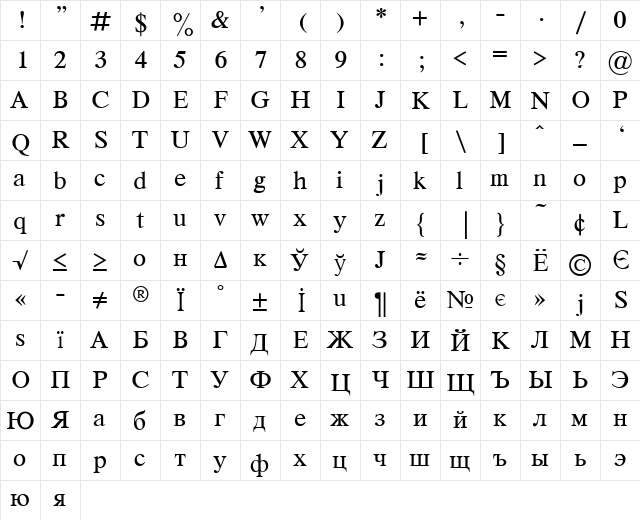
Respect Medium
Design Context for Respect Typeface
Respect takes a measured approach to typography — its balanced proportions and neutral character make it a reliable workhorse for both digital and print work.